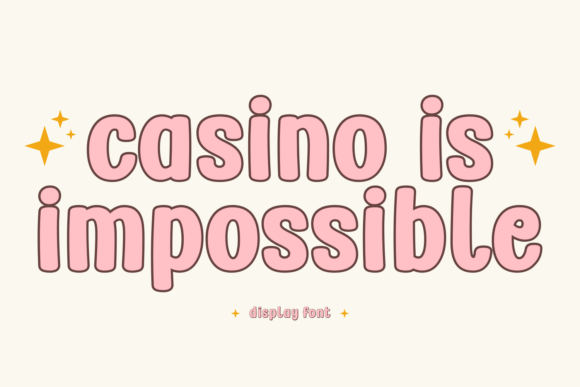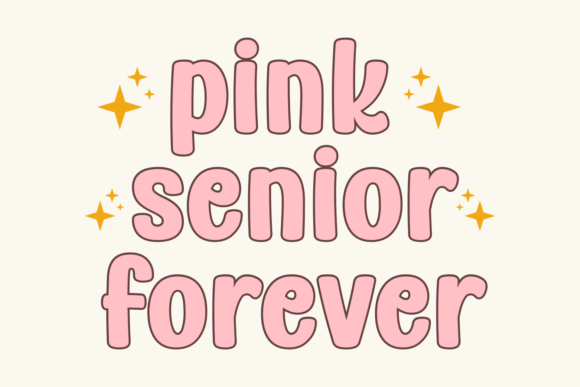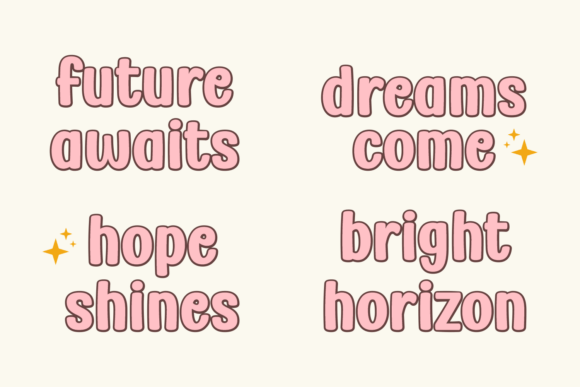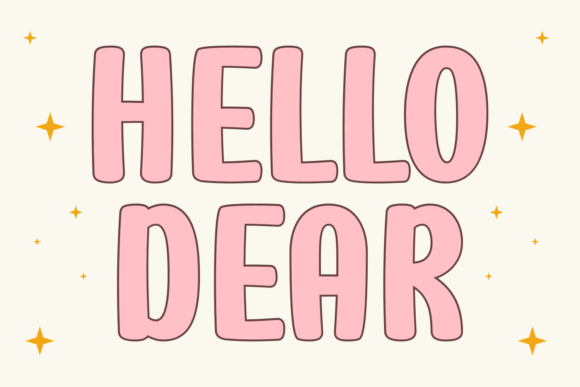
Casino is Impossible Font
About the Casino is Impossible Font
Make a bold statement with Casino is Impossible Font, a powerful and memorable font. Introducing “Casino Is Impossible”, a delightfully amusing display font that embodies a distinctive handwritten style. This authentic, smooth, and rounded design boasts an irresistibly clean and unique aesthetic. Ideal for a range of applications, it perfectly adorns cards, magazine covers, vintage t-shirts, and memorable greeting cards. This charmingly versatile font is also an inspired choice for expressing your favorite quotes, refining your brand design, enhancing apparel, enriching product packaging, or adding a touch of sophistication to your invitations. Labels, posters, and logotypes too can gain a fresh and captivating appeal with the 7ntypes multilingual support found in this delightful typeface. From its authentic and bold stance to its admirable book cover allure, “Casino Is Impossible” proves an invaluable asset for branding, card making, and cover design. It’s a display wonder, capturing the fancy of any observer. The font’s hand-drawn magic enchants in magazine headlines, while its multilingual strength extends its reach globally. Its packaging prowess, quote adaptability, round warmth, and smooth finesse make it a hit on t-shirts, and guarantees you a unique spot in every recipient’s memory.
Casino is Impossible Font Usage Examples
Casino is Impossible Font Example